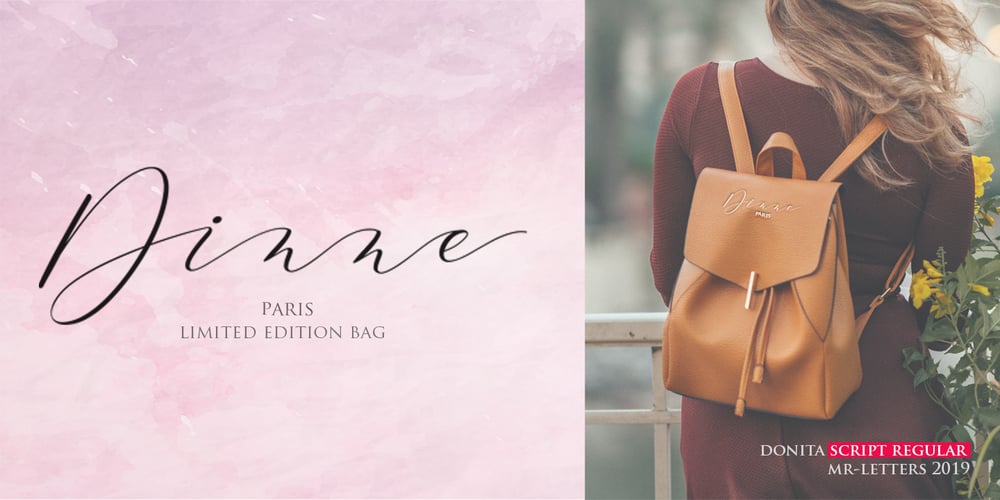
Donita
Donita font
Donita Font Family was designed by Muhammad Rizal and published by MrLetters. Donita contains 2 styles and family package options. Donita Script is a soft and beautiful font that has a connection to the upper part of the letter, this is something unique but very beautiful, luxury and charming. This font is to complement your design needs in making amazing works. Donita Script is perfect for branding, wedding invitations, magazines, mugs, business cards, quotes, posters, and many more that you can use on your big project will be very beautiful. Donita Script has been equipped with the OpenType feature and has many glyphs. and of course having a lot of flying machines will be able to choose letters to your liking, lots of variations and choices for each letter, so you can adjust your design choices and also have other languages ​​supported.which you will get in this package: This font is very suitable for use with programs that support OpenType features such as Adobe Photoshop Cs / Adobe Photoshop CC, Adobe Illustrator CS / Adobe Illustrator CC, Adobe Indesign, and Corel Draw and many more programs that support OpenType. If you have any questions, don’t hesitate to contact me via email at: hello.mrletters@gmail.com Thank you and happy designing 🙂